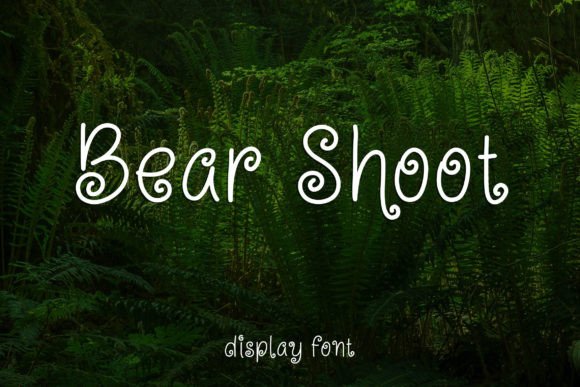
Journey into a realm of enchanting typography with Bear Shoot Font, a captivating script font family that evokes the magic of fantasy realms. Step into a world where words dance with whimsy and grace, where stories take flight on the wings of imagination.
Bear Shoot's playful curves and expressive strokes bring a touch of enchantment to every project, whether it's a whimsical children's book, an otherworldly poster, or an enchanting invitation. Its hand-drawn style infuses your creations with a sense of authenticity, drawing readers into a captivating narrative.
Harness the power of Bear Shoot to transform your designs into captivating works of art. Its meticulously crafted characters possess a unique charm, inviting audiences to embark on extraordinary adventures and explore uncharted territories.
With Bear Shoot, you unlock a font family that transcends the ordinary, taking you on a journey through enchanted forests, soaring above cloud-kissed mountains, and diving into the depths of mystical oceans. Its versatility knows no bounds, adapting effortlessly to a myriad of design endeavors.
Bear Shoot is a font crafted with passion, its every curve and stroke infused with a touch of magic. Its ability to elevate any project is undeniable, making it an essential tool for those seeking to weave a tapestry of words that captivates and enchants.
Embrace the magic of Bear Shoot and let your imagination run wild. Its enchanting allure will transform your creative visions into captivating masterpieces, leaving readers spellbound and eager for more.